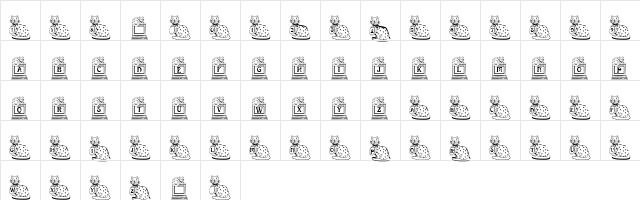
BJF Kat n Mouse Regular
Design Context for BJF Kat n Mouse Typeface
BJF Kat n Mouse is a composed and adaptable typeface that performs quietly and consistently across a wide range of design contexts.
Pro Tip: Use BJF Kat n Mouse in both headline and body roles to test its range before committing to a single application.